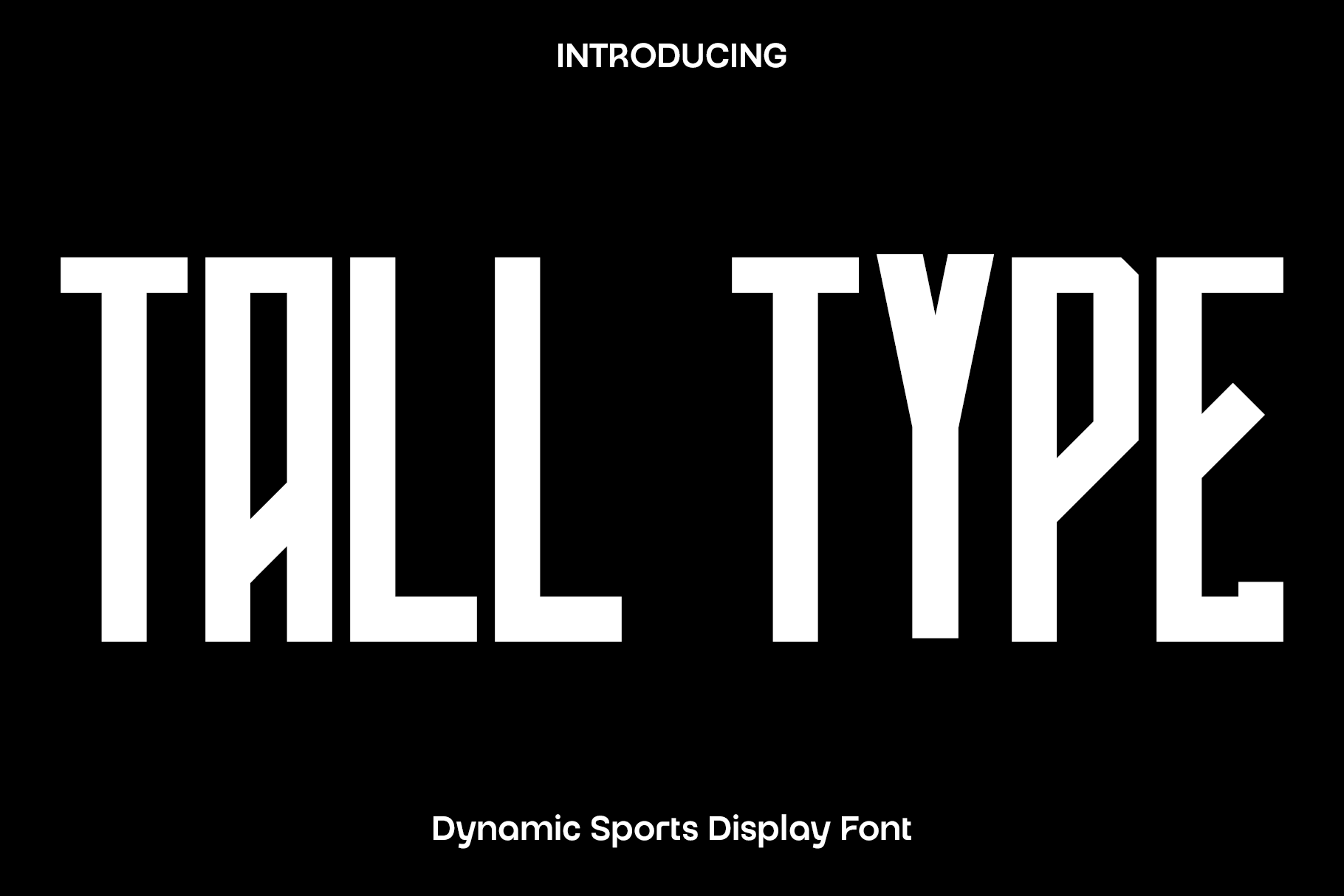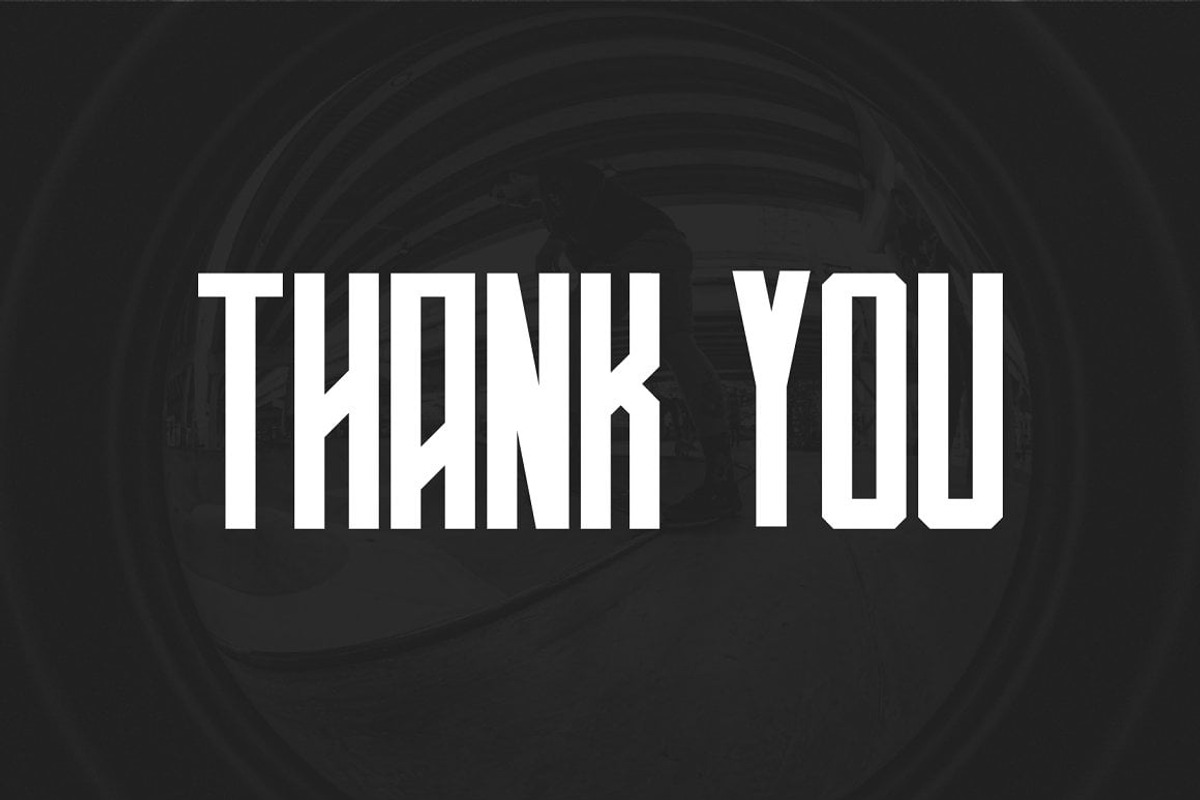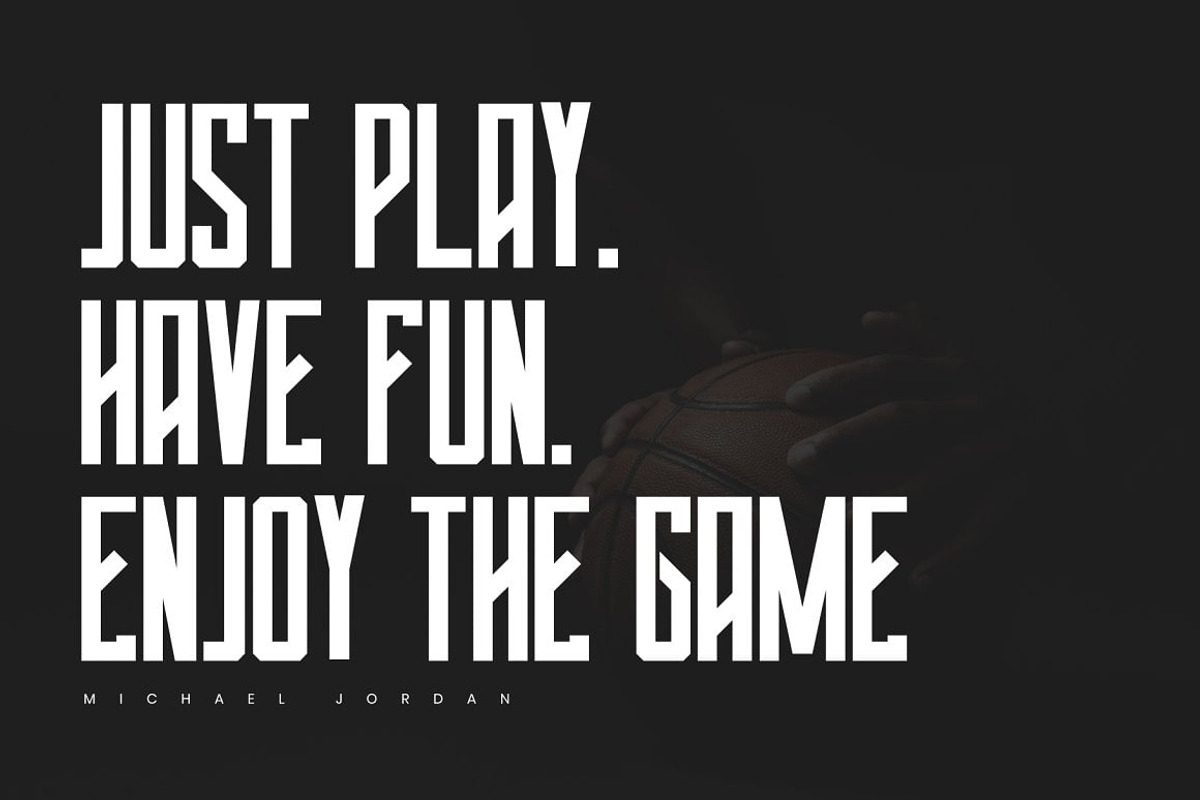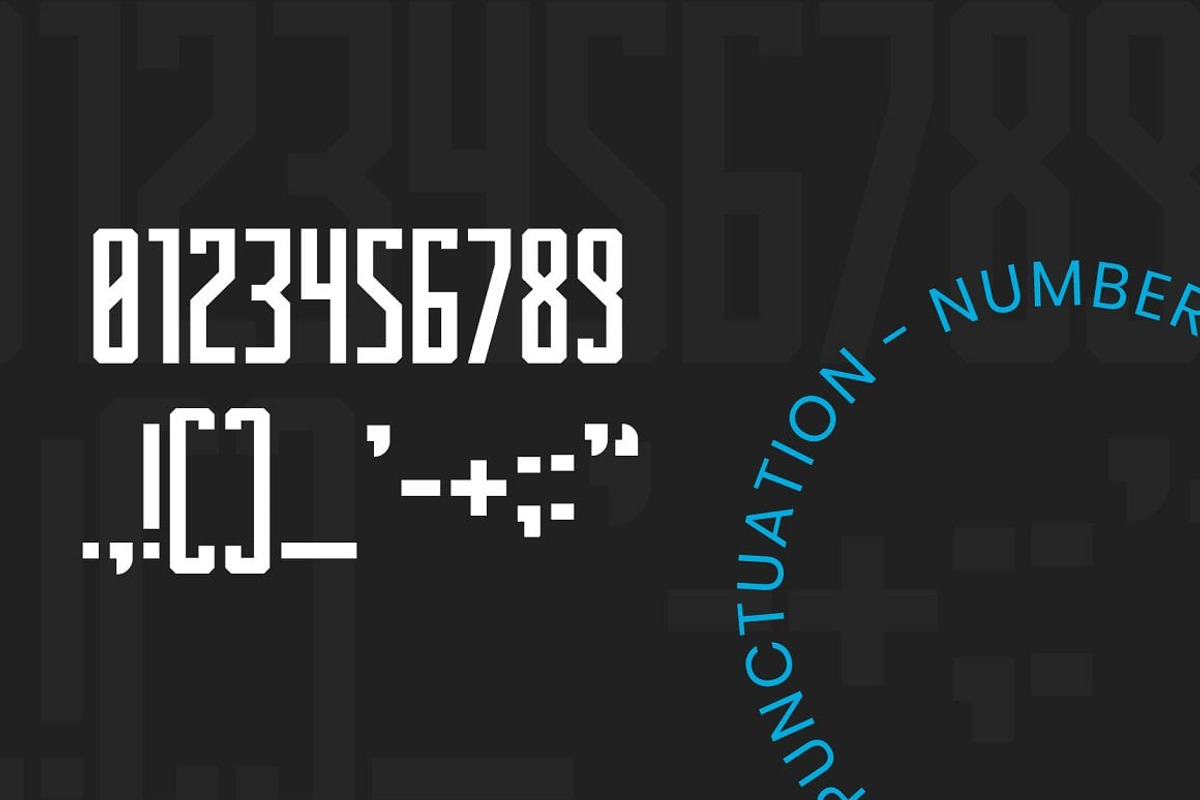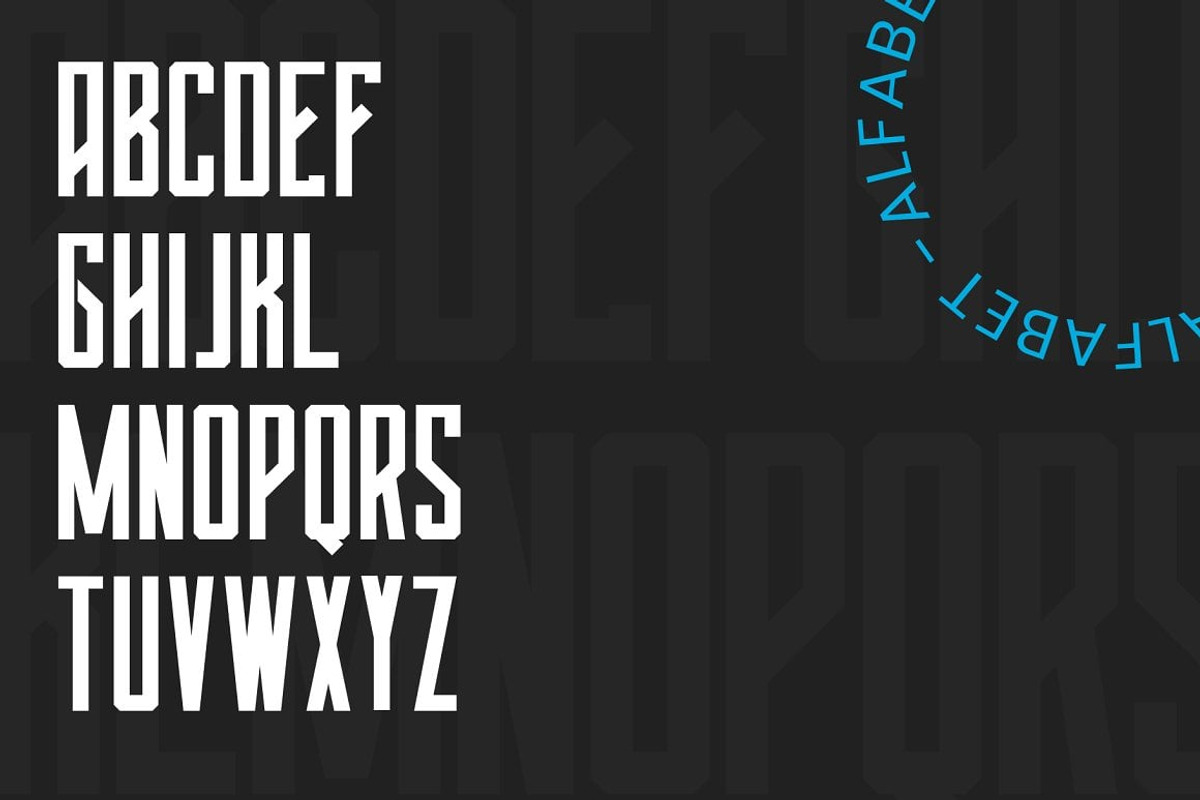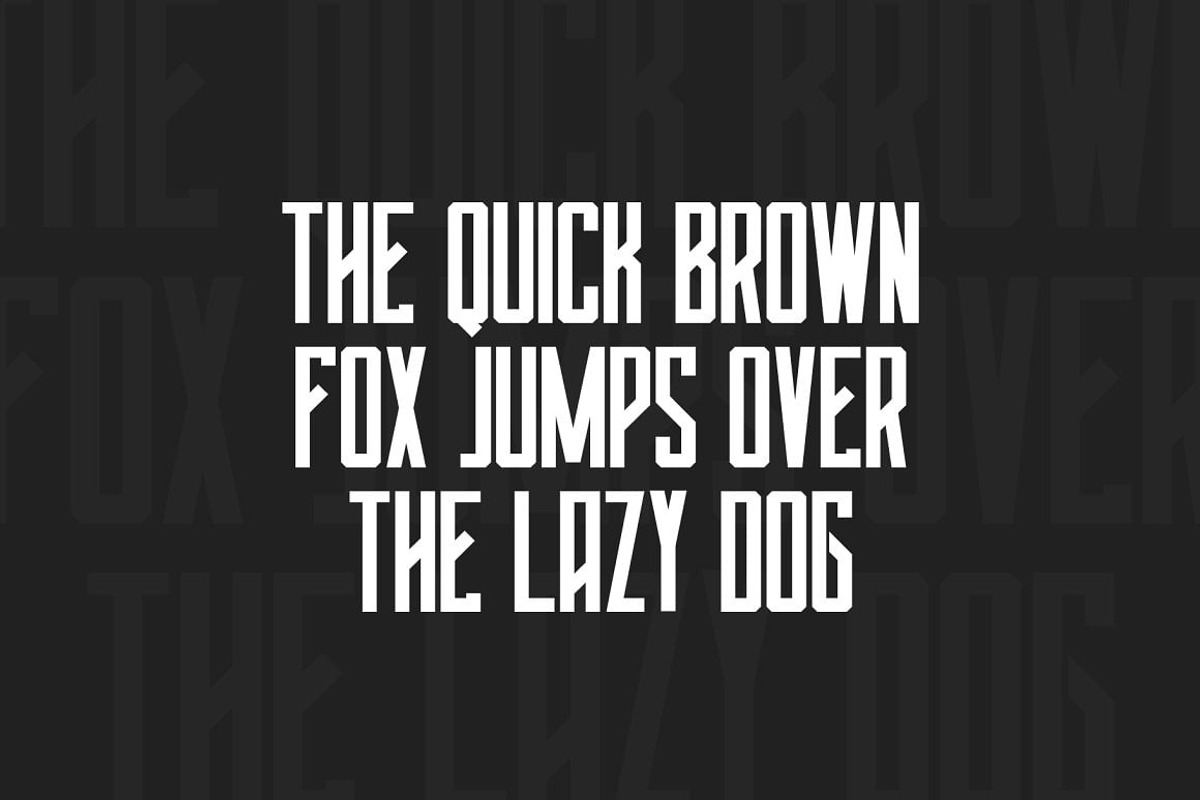
Tall Type - Sans Display Font
Tall Type is a bold sports display font created to capture the speed, energy, and intensity of modern athletics. Inspired by competitive sports, racing, and powerful typography, Tall Type features wide italic letterforms, sharp cutout details, and a dynamic slanted structure that delivers an instant sense of movement. Every character is carefully crafted to maximize readability while creating a strong visual impact that commands attention.
Designed for projects that require confidence and power, Tall Type is perfect for sports branding, football and basketball graphics, esports logos, gaming titles, racing themes, athletic apparel, team jerseys, event posters, YouTube thumbnails, social media campaigns, product packaging, monograms, and promotional materials. Its bold construction and energetic style make it equally effective across print and digital media.
Whether you're creating a professional team identity, designing a tournament poster, developing fitness branding, or producing modern advertising campaigns, Tall Type provides the versatility and visual strength needed to make your work stand out. Its clean geometric forms and dynamic proportions ensure every headline and logo looks modern, impactful, and memorable.
With its powerful sports-inspired personality and contemporary design, Tall Type transforms ordinary typography into bold statements filled with speed, confidence, and determination. It is an essential font for designers looking to create energetic branding and high-impact display typography that leaves a lasting impression.
Tall Type Font Features:
• Bold sports display style
• Wide italic letterforms with dynamic cutout details
• Strong modern typography for impactful headlines
• Uppercase and lowercase characters
• Numbers and punctuation
• Perfect for sports branding, esports, football, racing, gaming, logos, posters, apparel, monograms, and advertising
• Suitable for both print and digital projects